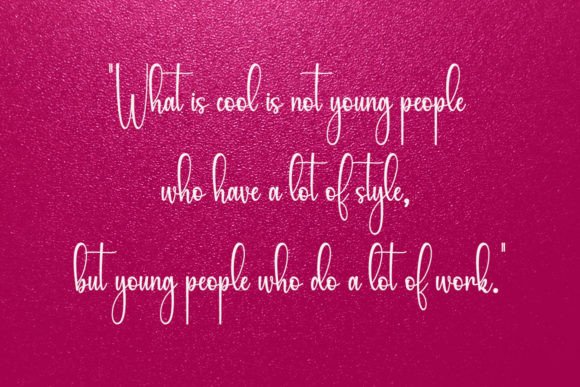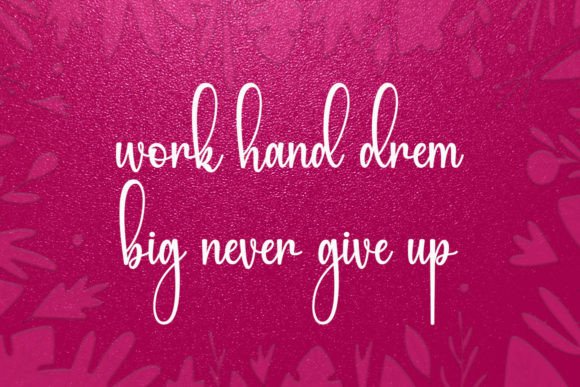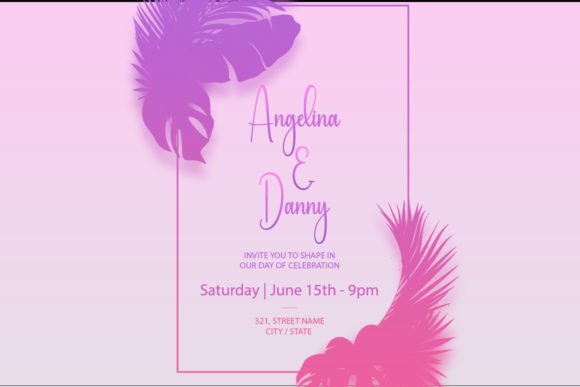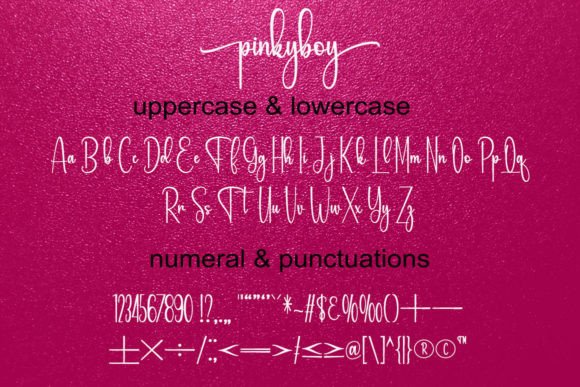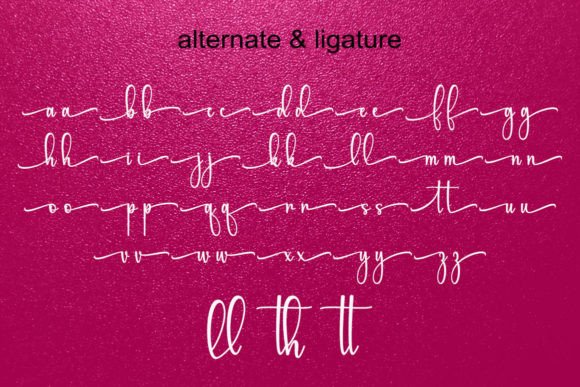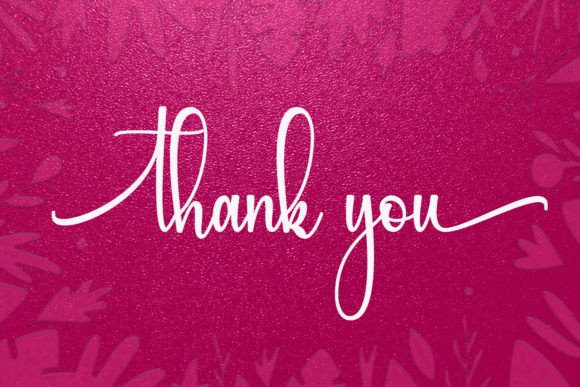
Introduction to Pinkyboy Font
Pinkyboy is an enchanting handwritten font perfect for logos, branding, quotes, clothing, tote bags, business cards, websites, and many more.
Fall in love with it, and let it take your projects to the highest level .
Key Features of Pinkyboy Font